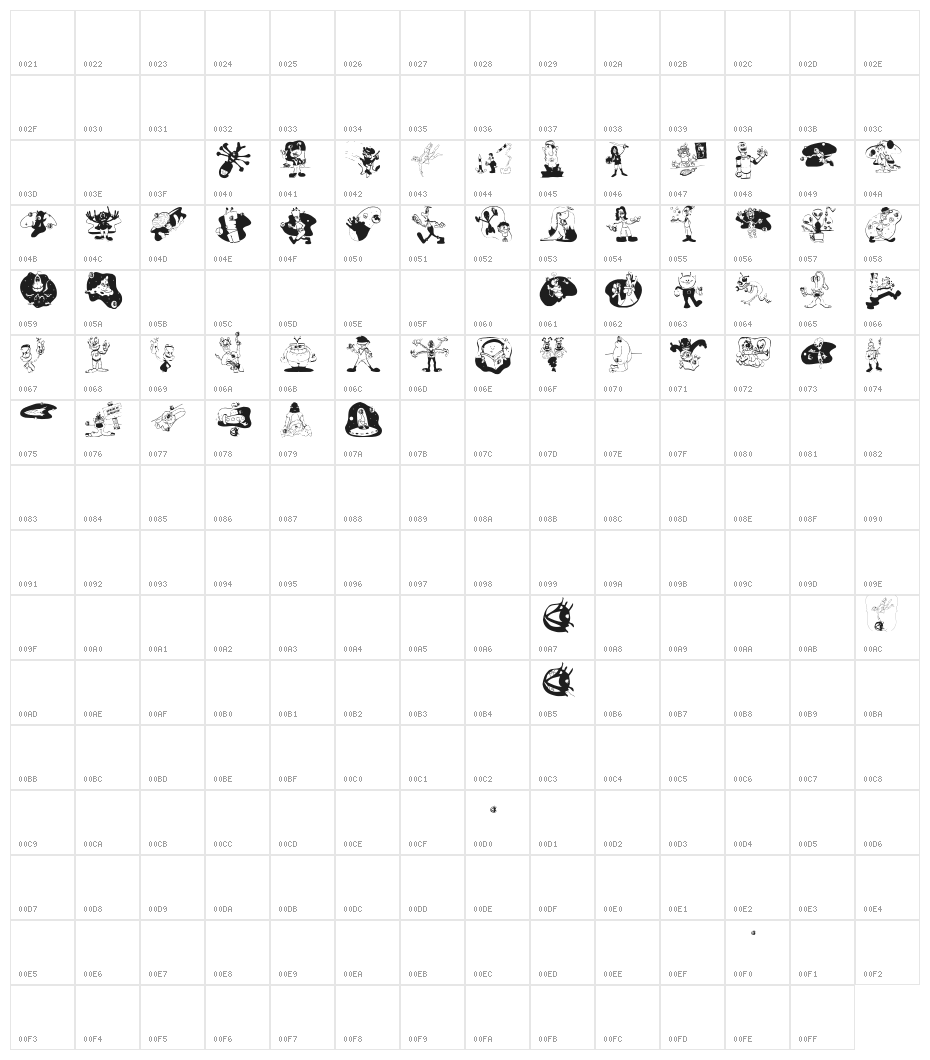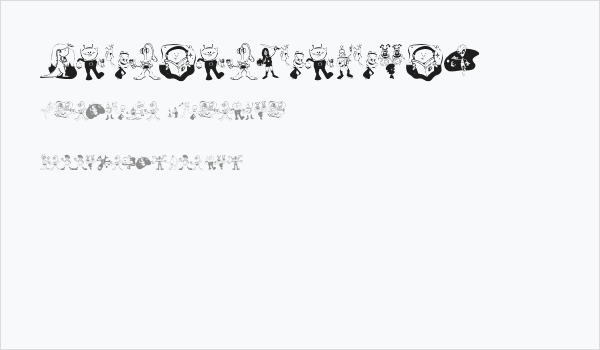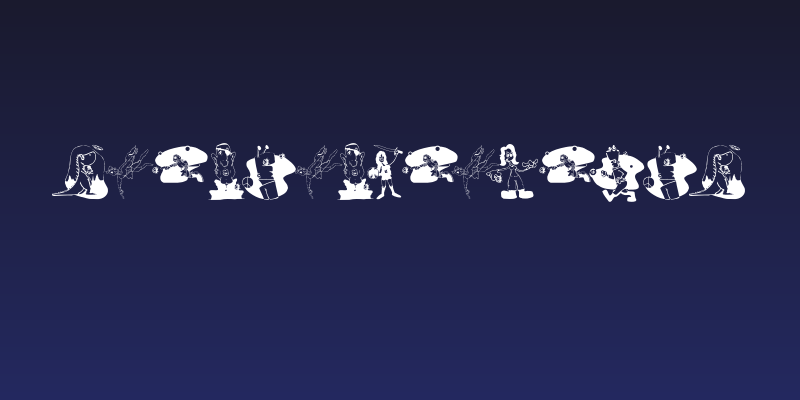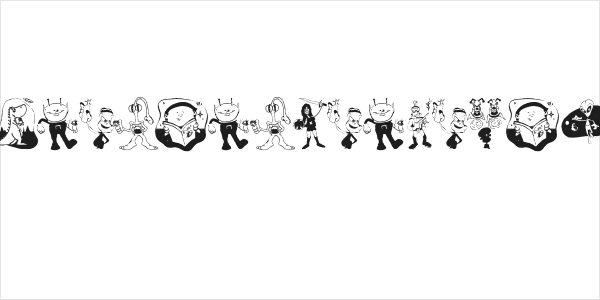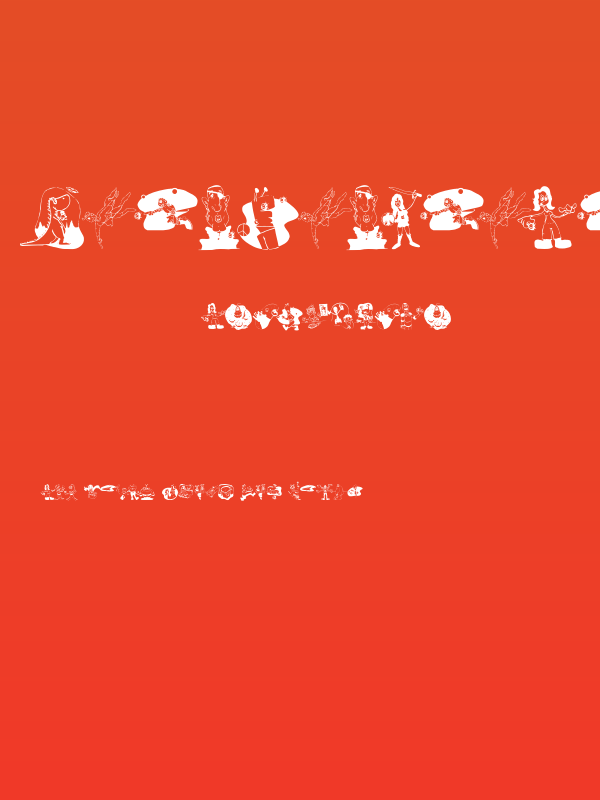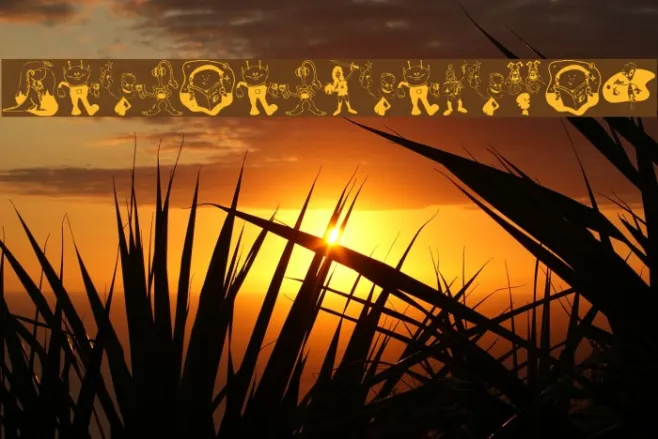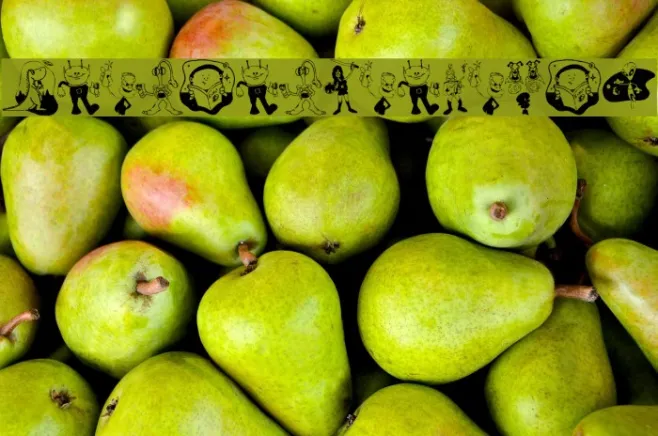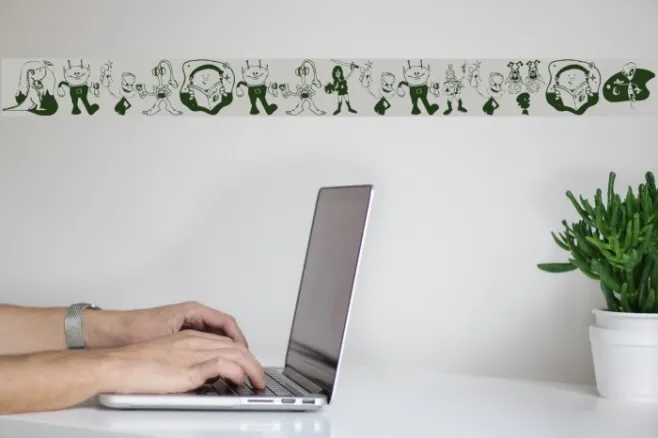
ScienceFictions Font
ScienceFictions Description
A highly decorative and playful font where each character is represented by a unique cartoon-style science fiction illustration, featuring aliens, robots, astronauts, and other whimsical sci-fi elements. The glyphs are bold and irregular, with varying shapes and sizes, making them more pictorial than typographic.
| Overall Style | Decorative, Whimsical, Playful |
| Use Case | Headlines, Logos, Posters, Themed Graphics |
| Proposed Projects | Children’s book covers, comic titles, sci-fi event posters, themed party invitations, novelty merchandise. |